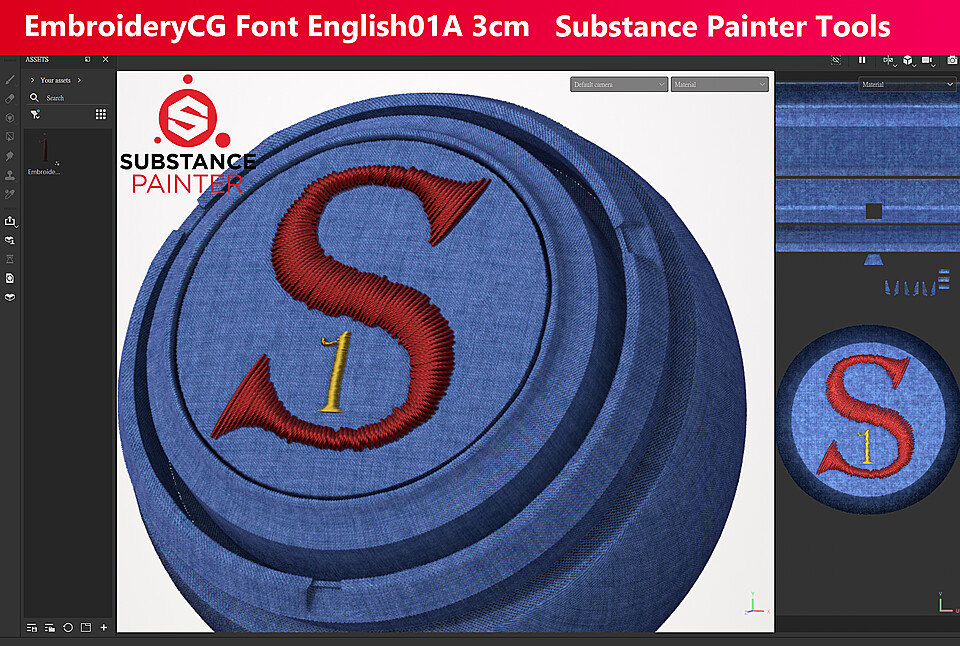
EmbroideryCG Font English01A 3cm Substance Tools
EmbroideryCG Font English01A 3cm : Substance Painter Tools
- size:3cm
- 26 english upper case font
- 10 arabic number font
- Reference Embroidery Stitch Making
- Easily make embroidered word textures base PBR material